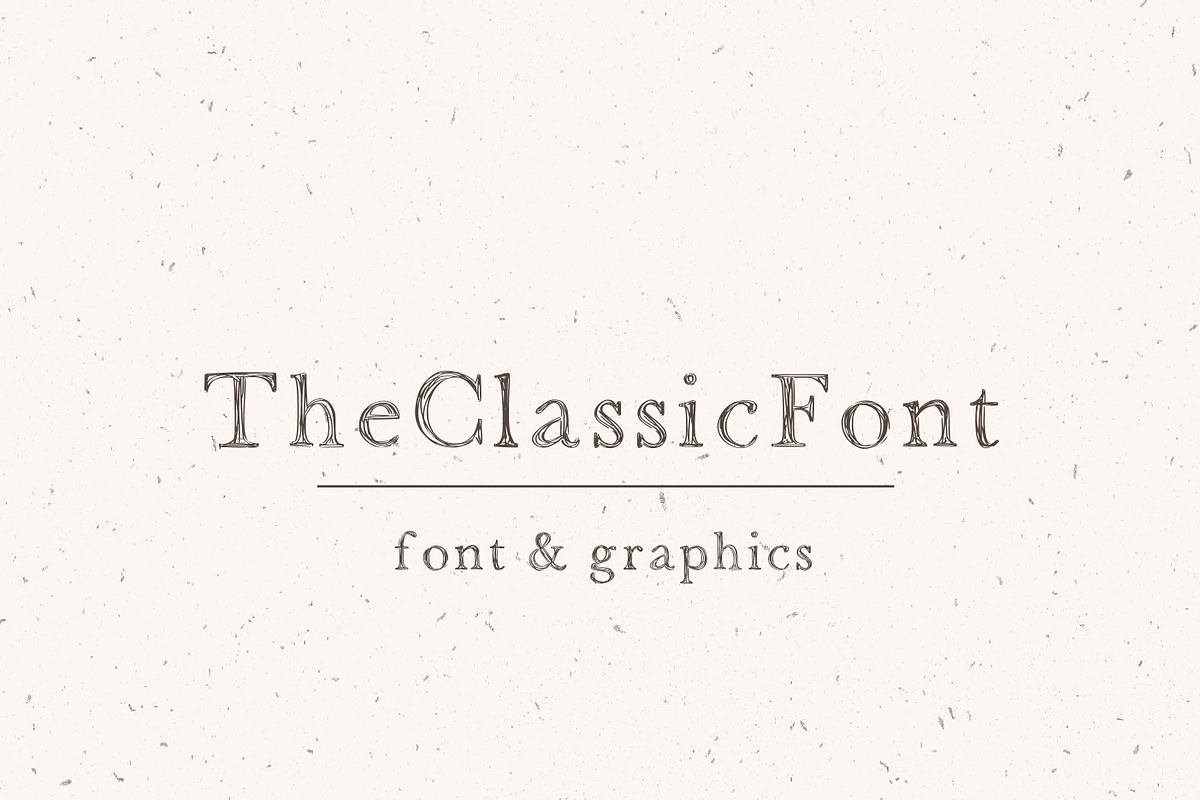
The Classic Font Free Download is a timeless serif typeface that brings elegance, structure, and refined beauty to your designs. With its balanced proportions, clean lines, and subtle vintage influence, The Classic is ideal for editorial layouts, branding, book covers, wedding invitations, and high-end packaging.
Designed with versatility in mind, The Classic Font Free Download delivers sophistication and readability across both print and digital media. Its graceful serifs and classic letterforms make it a perfect choice for projects that need a touch of tradition blended with modern professionalism.
Whether you're creating magazine spreads, timeless logos, or formal presentations, The Classic adapts beautifully to any layout. It pairs effortlessly with sans-serif fonts or calligraphic scripts, offering endless creative potential.